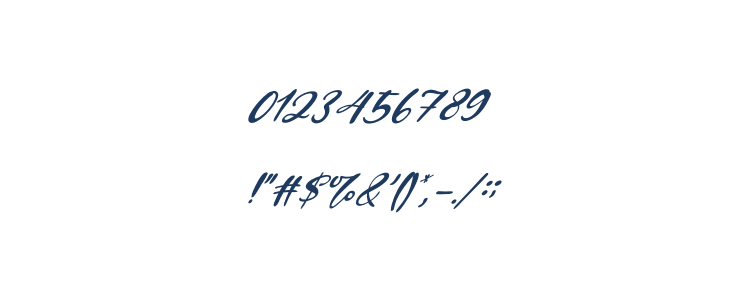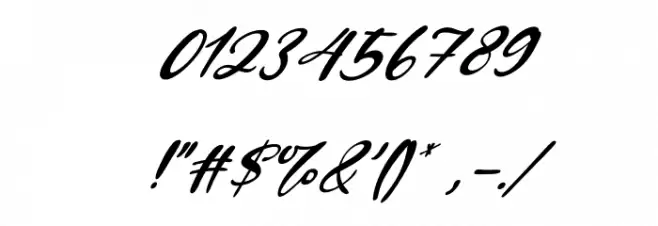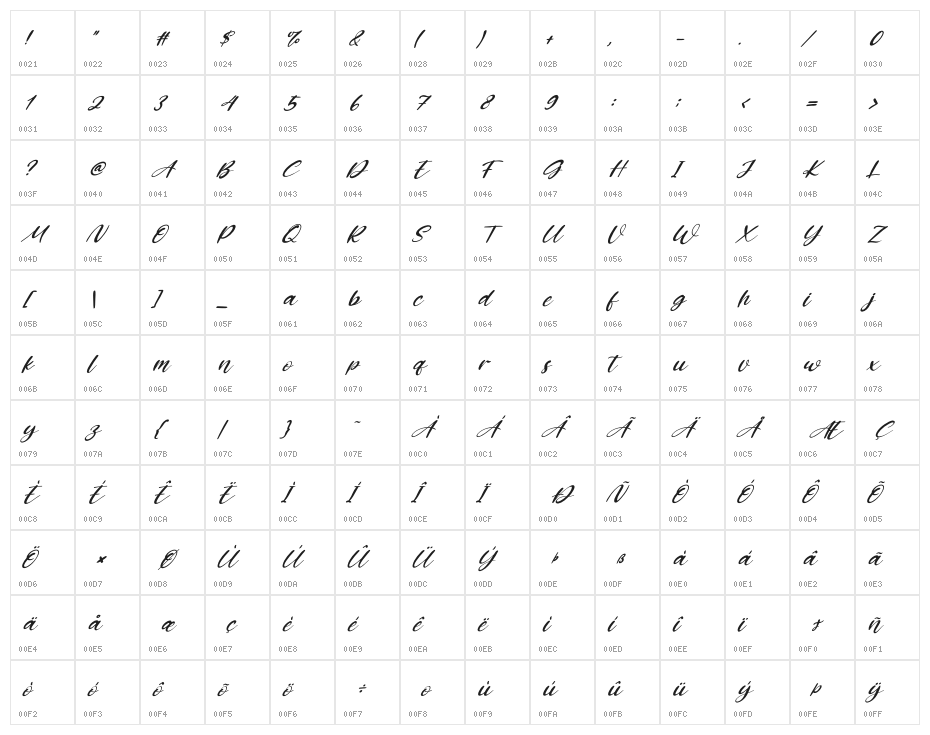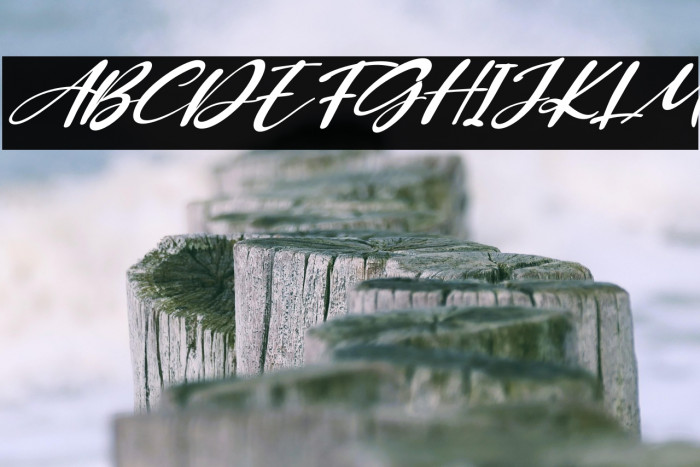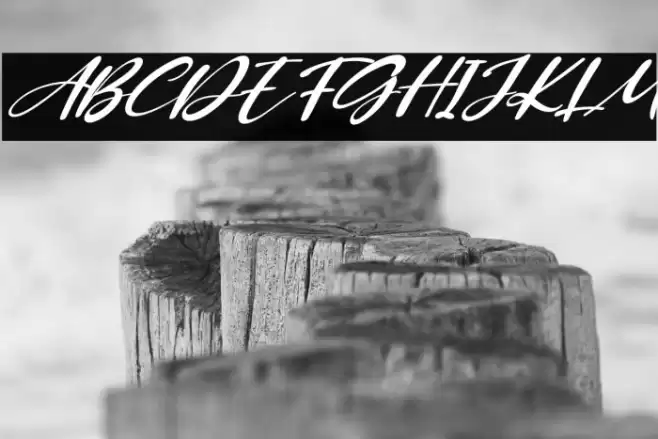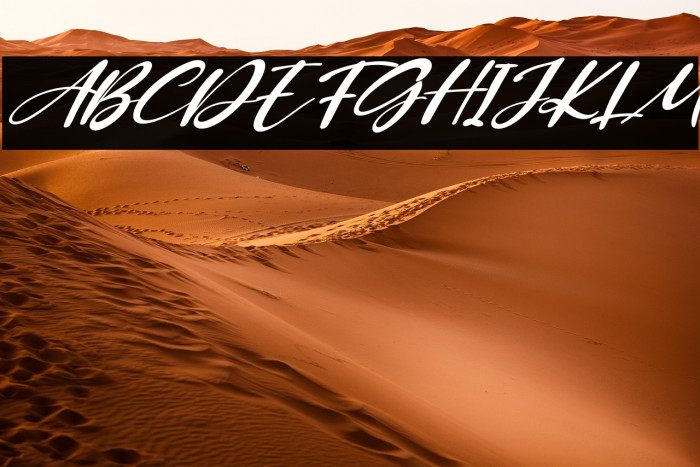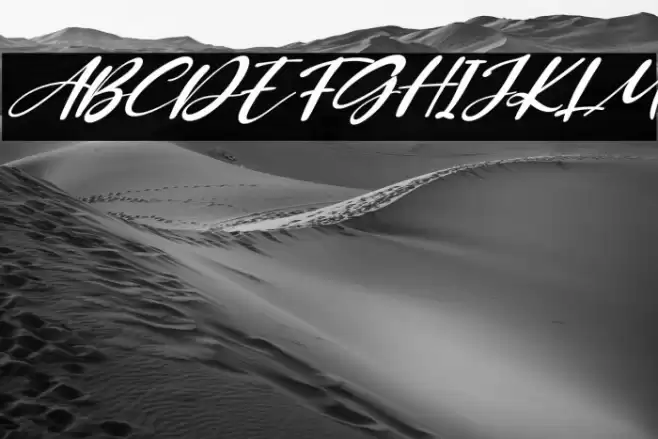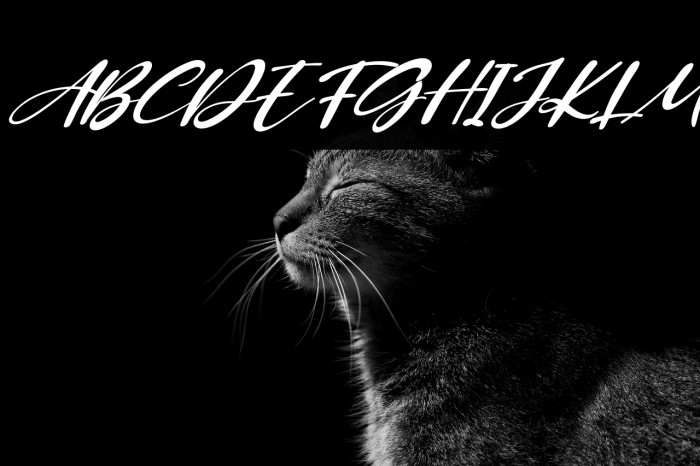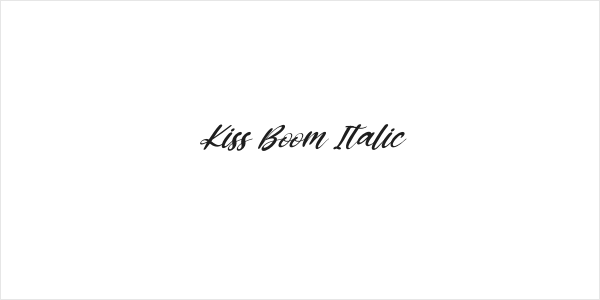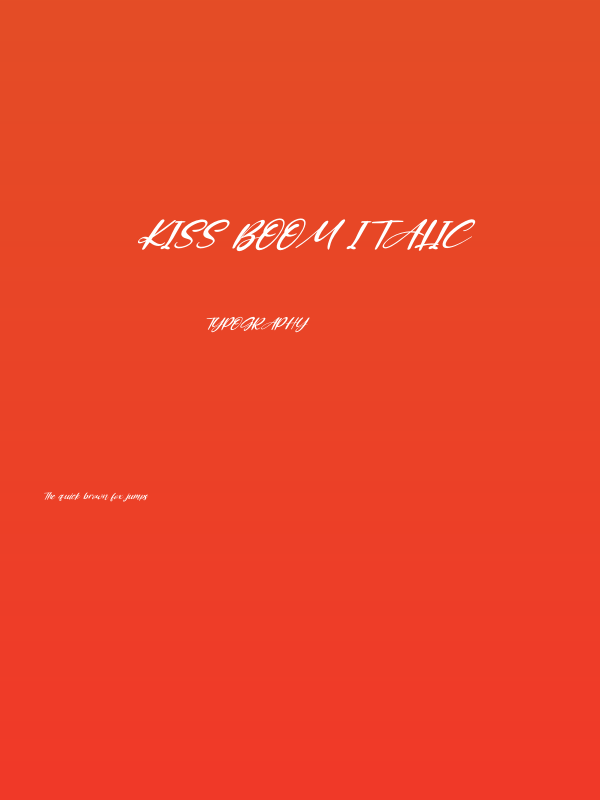
Kiss Boom Italic Font
Kiss Boom Italic Description
This font exhibits a dynamic and flowing script style, characterized by its elegant and cursive letterforms. The strokes are smooth and connected, giving it a handwritten appearance. The uppercase letters are bold and sweeping, while the lowercase letters maintain a consistent fluidity. The numerals and special characters are crafted with the same attention to detail, ensuring uniformity across the typeface. The overall aesthetic is both sophisticated and playful, making it suitable for a variety of creative applications.
| Proposed Projects | Ideal for wedding invitations, greeting cards, branding projects, and any design requiring a personal touch. |